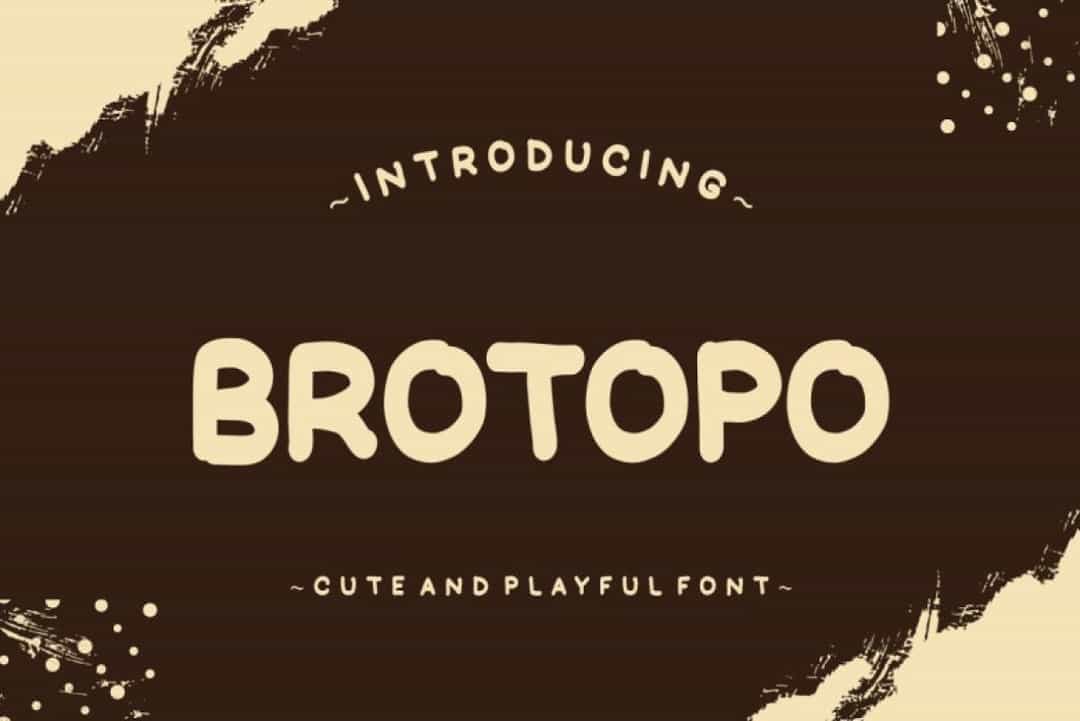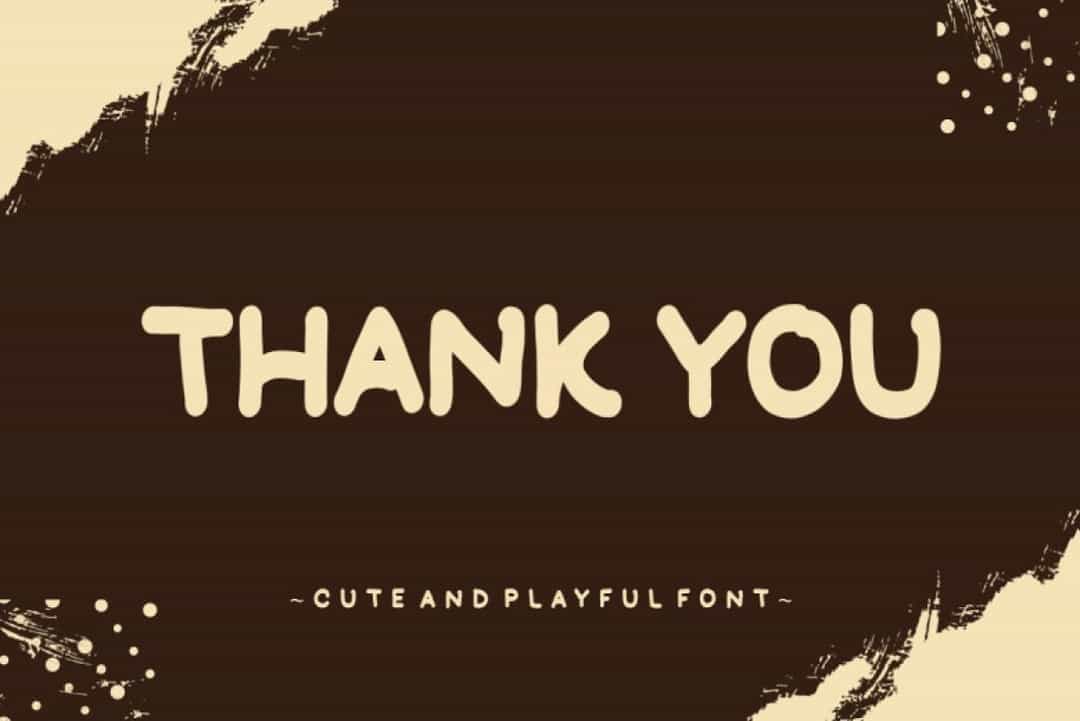
Discover Brotopo Font, part of the Sans Serif Display collection—a versatile and unique font perfect for adding a personal touch to your projects. Download it for free and enjoy crafting designs with style, from invitations to social media posts. This font is available exclusively for personal use, giving you the freedom to create without limits. Unlock your creativity with Brotopo Font today!
Brotopo, an elegant, modern and simple sans serif font is designed for elegance and beauty, making an impactful statement about contemporary design. Perfect for T-shirts, posters, book covers, cards and merchandise; Brotopo makes a bold impression that can transform into beauty for T-shirts, posters book covers cards merchandise etc.